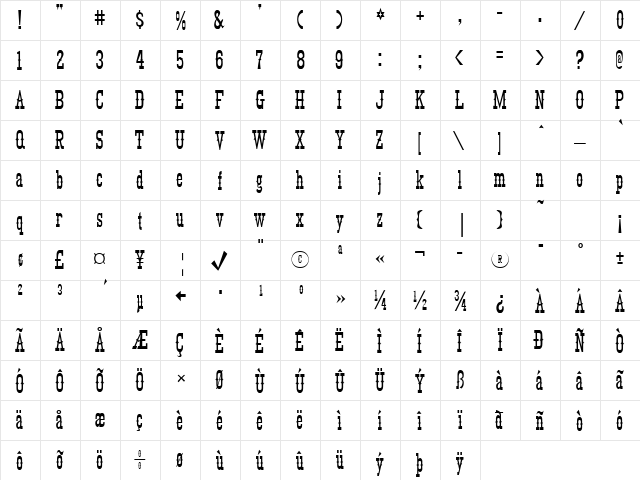
KyhotaBarbed Regular Font Preview
KyhotaBarbed Regular
Design Context for KyhotaBarbed Typeface
KyhotaBarbed offers clean, dependable letterforms without strong stylistic allegiance, making it a practical choice for designers who need flexibility.